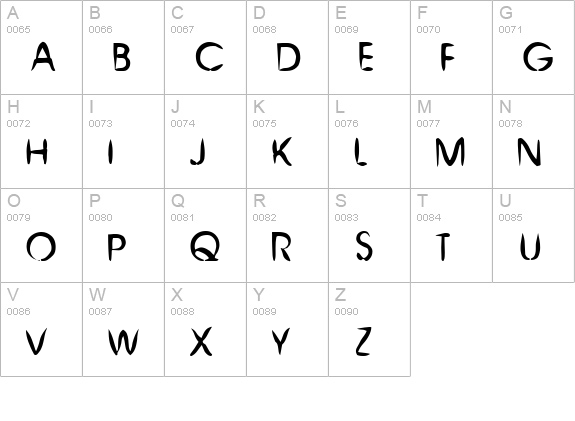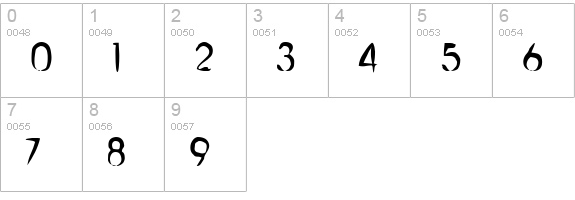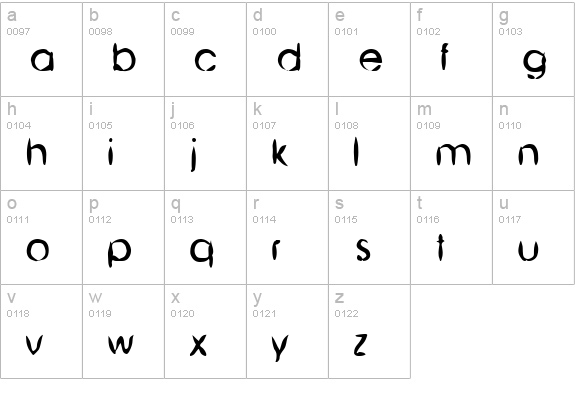
Chinese Brush Font Details
The Chinese Brush font is a beautiful and elegant typeface that captures the essence of traditional calligraphy with its graceful strokes and intricate details. This font exudes a sense of sophistication and cultural richness, making it perfect for projects that require a touch of the oriental charm. What sets the Chinese Brush font apart is its unique blend of classic brush techniques and modern design elements, resulting in a versatile and eye-catching typeface that is sure to make a statement. Whether you are designing invitations, posters, or branding materials, this font will add a touch of elegance and authenticity to your work. Best of all, the Chinese Brush font is available for free download at FontsMarket.com, making it accessible to everyone who wants to add a touch of Chinese-inspired flair to their projects. Don't miss out on this opportunity to enhance your designs with the beauty of traditional calligraphy – download the Chinese Brush font today!